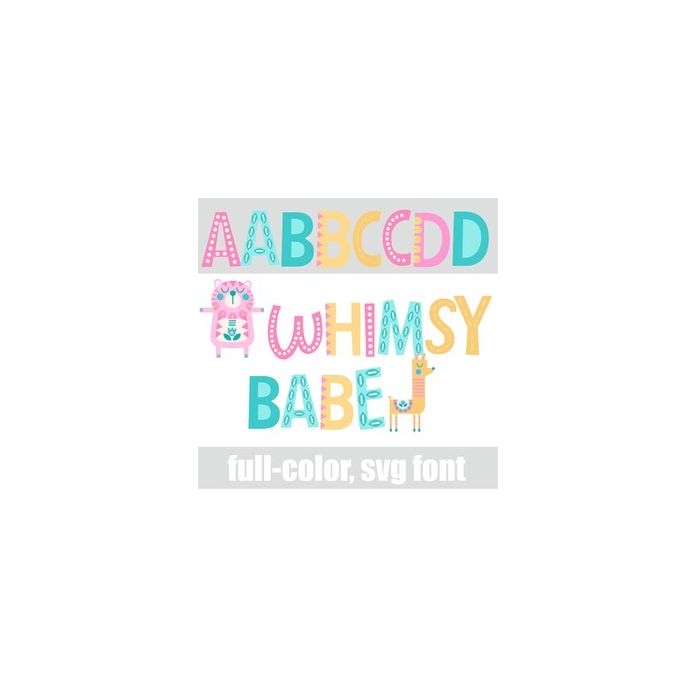
This adorable, crafty, spring/baby font is youthful and sports a pink, blue and yellow color palette. Access cute animals by typing the greater than and less than glyphs or rectangle brackets. There is an alt case w/ additional colors you can access through your system or Silhouette's glyph map.